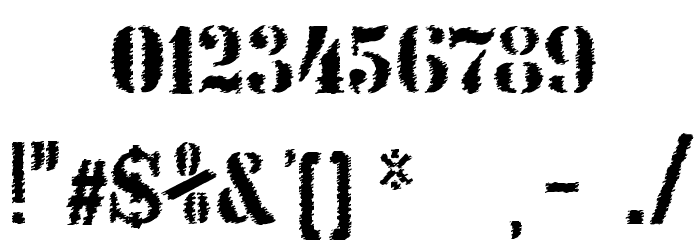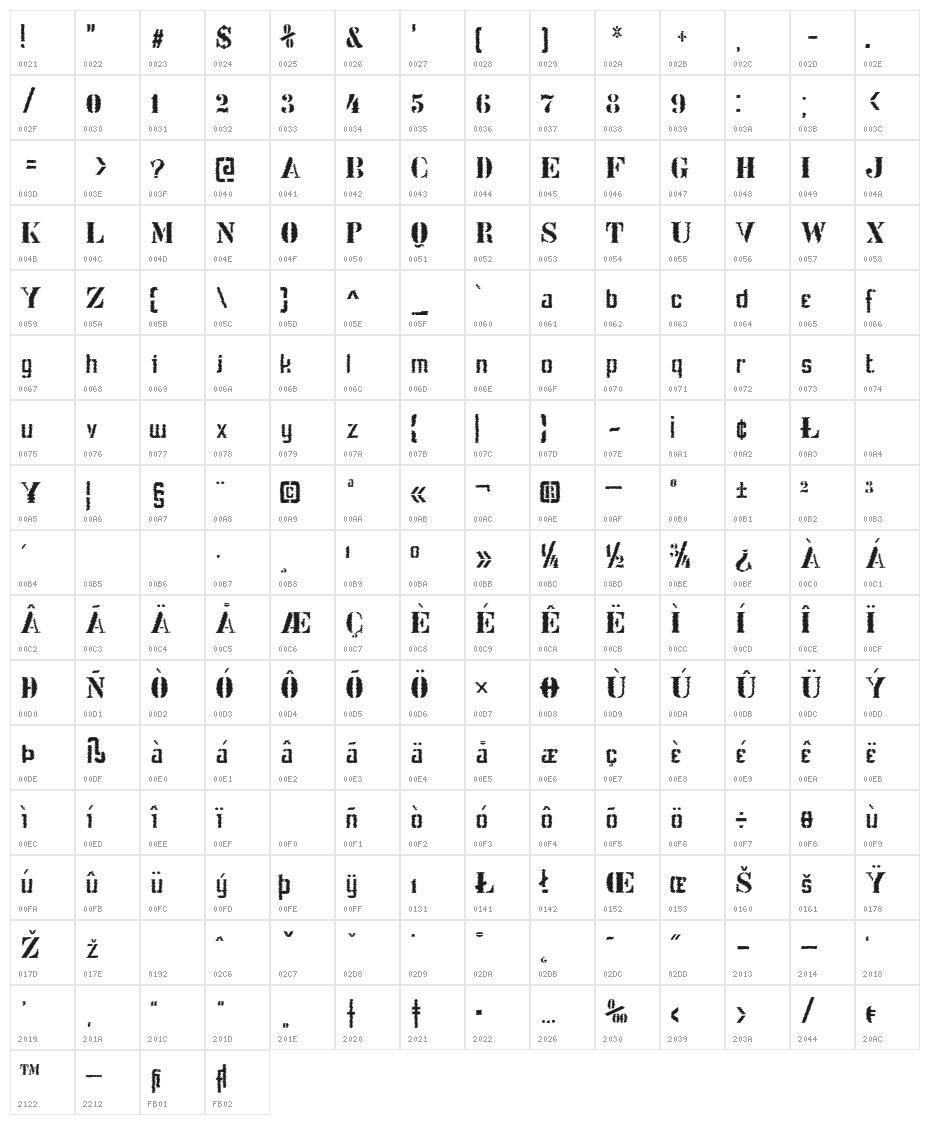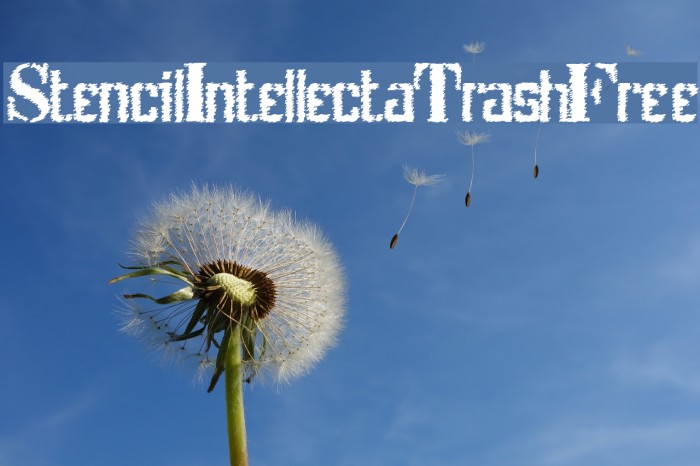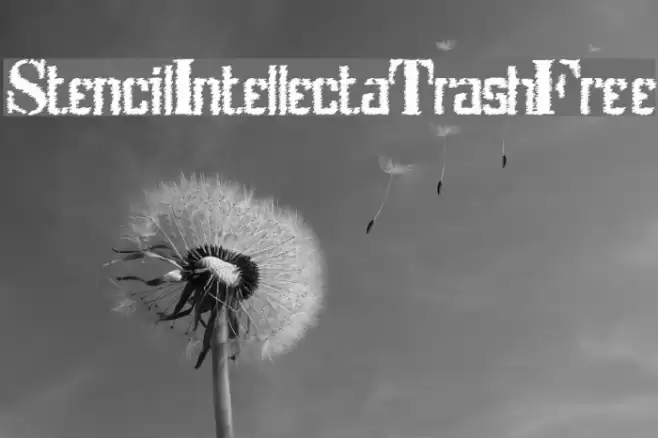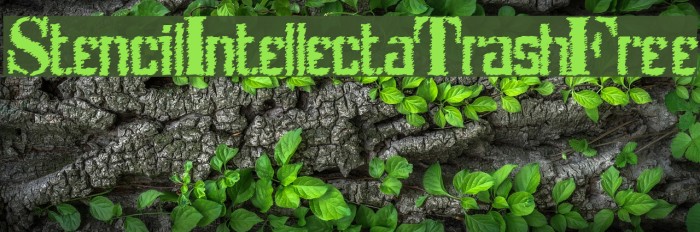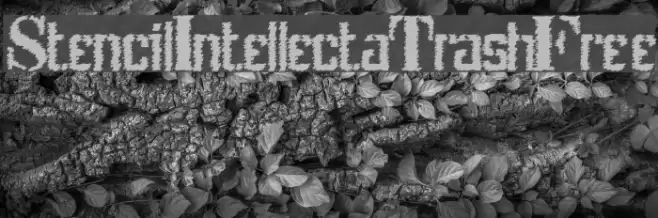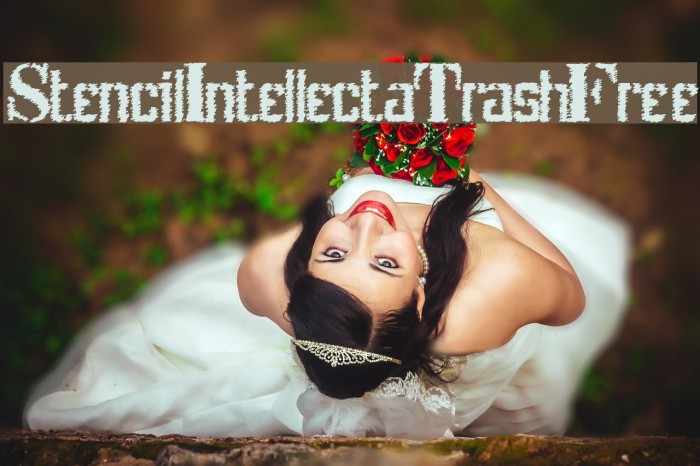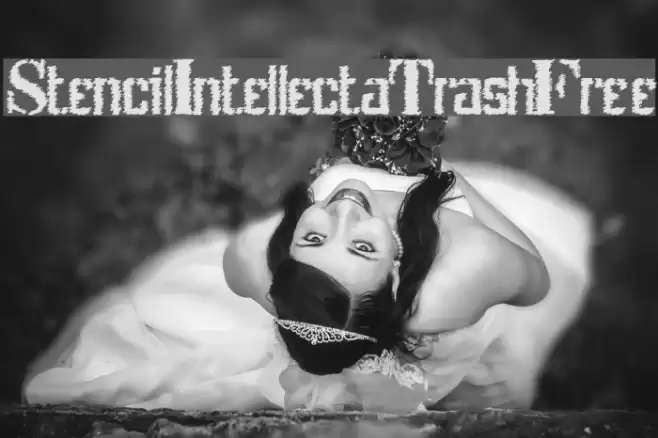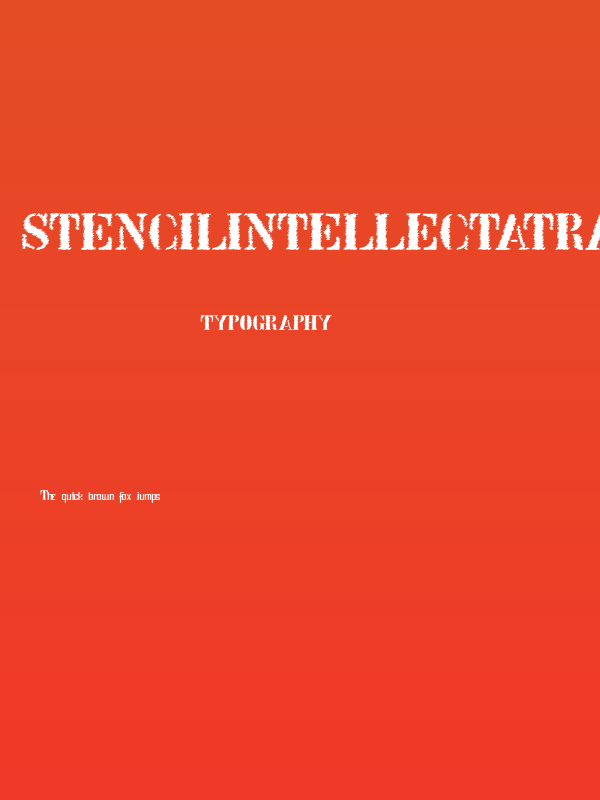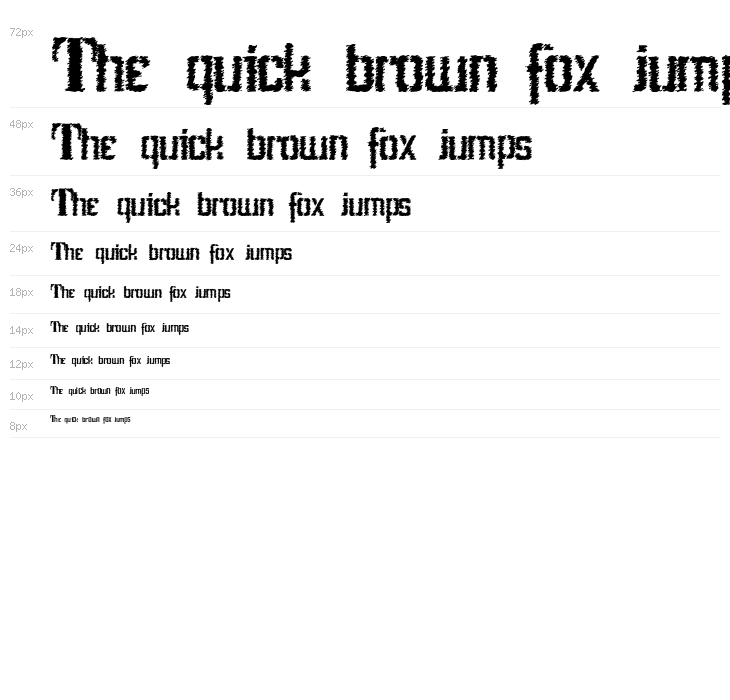
StencilIntellectaTrashFree Font
StencilIntellectaTrashFree Description
This font features a bold, stencil-like design with a distressed, grunge texture. The uppercase and lowercase letters, as well as numbers and special characters, exhibit a rugged, cut-out appearance that suggests a sense of urban or industrial style. The strokes are thick and uneven, giving the font a unique, eye-catching look. The characters are well-defined yet maintain a rough edge, making them suitable for impactful and bold statements. The font's distressed texture adds a layer of depth and character, making it ideal for projects that require a strong visual presence.
| Overall Style | Industrial, Grunge |
| Proposed Projects | Ideal for urban-themed posters, album covers, streetwear branding, and any project needing a bold, gritty aesthetic. |